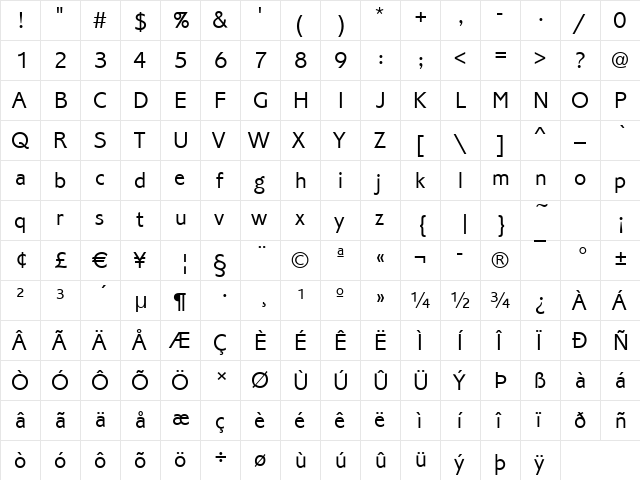
Cordoba Regular
Design Context for Cordoba Typeface
Cordoba offers clean, dependable letterforms without strong stylistic allegiance, making it a practical choice for designers who need flexibility.
Pro Tip: Use Cordoba in both headline and body roles to test its range before committing to a single application.